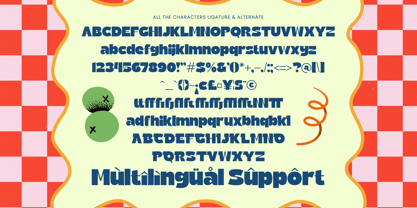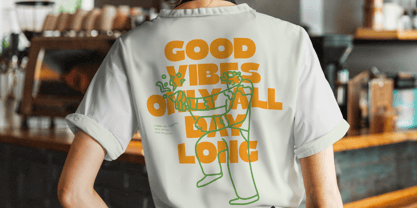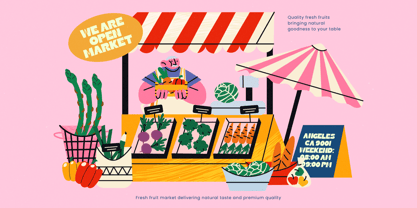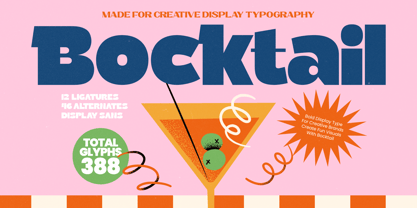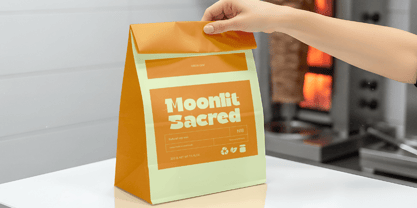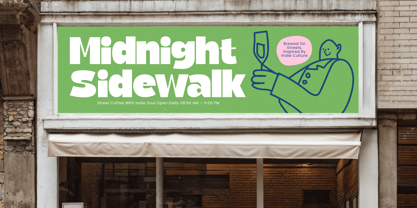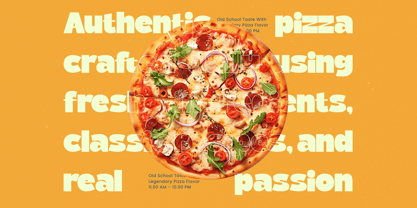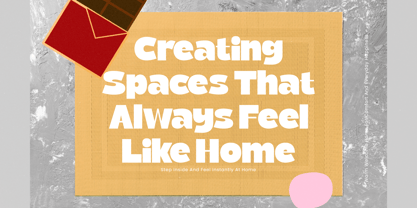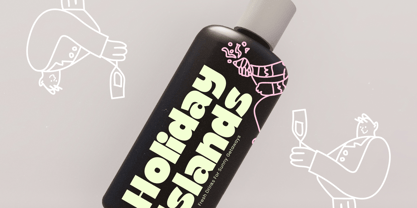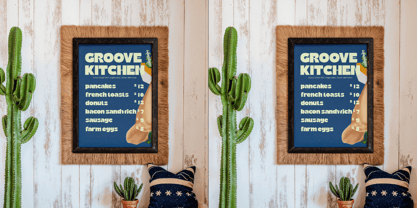
Bocktail
La familia tipográfica Bocktail fue diseñada por Heru Utama Putra y publicada por Timelesstype Studio. Bocktail contiene 2 estilos y opciones de paquete familiar. Más información sobre esta familia
Bocktail is a bold display sans crafted for designers who want loud personality and vibrant visual impact, blending chunky geometric forms with playful alternates that instantly energize any composition. Packed with 12 ligatures, 46 alternates, and 388 glyphs, this typeface delivers strong creative flexibility for branding, posters, packaging, social media visuals, event graphics, and retro-inspired layouts that need a fun yet professional tone. Its confident letterforms, lively rhythm, and colorful design spirit make Bocktail a standout choice for creative brands seeking a typeface that feels fresh, dynamic, and irresistibly eye-catching.